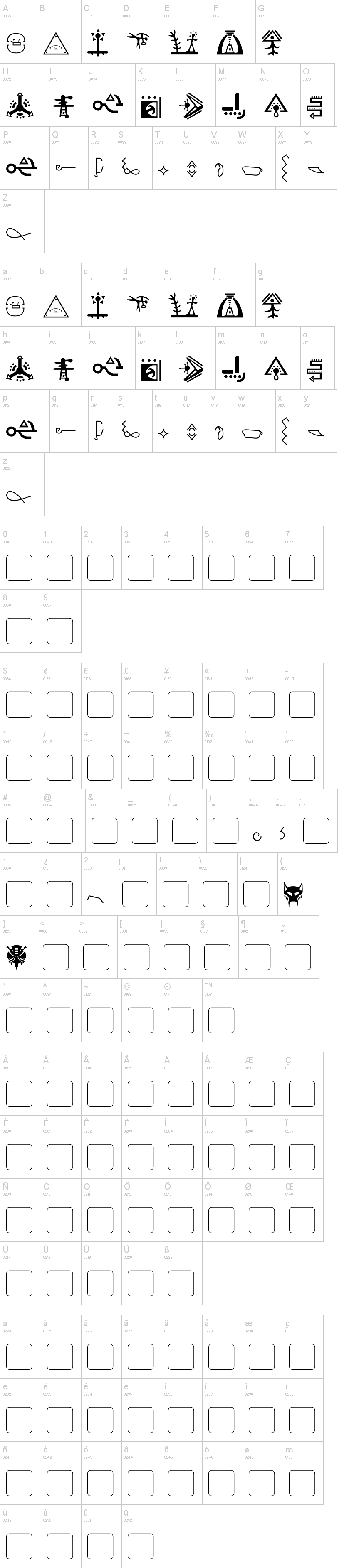
Note of the authorGiedi Golden Disk is an updated of Jim Sorensons Golden Disk font (with permission). The face is based on the computer writing found on the Vokks Golden Disk in the Beast Wars television show. Includes all known canonical symbols, along with Maximal and Predacon symbols replacing the left and right brackets, respectively.